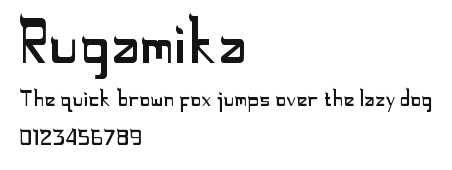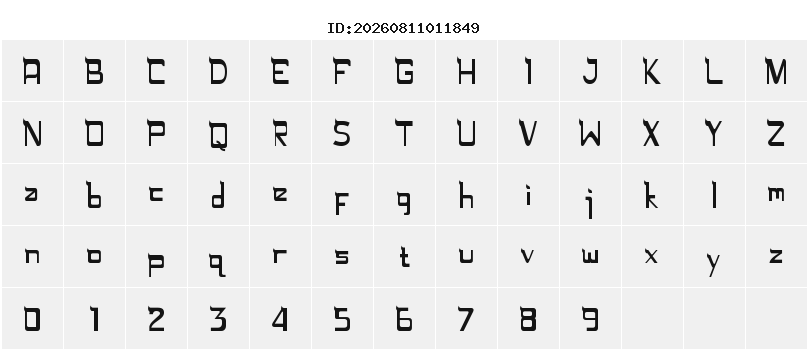
Rugamika.ttf is a modern, elegant sans-serif font designed for ultimate readability and visual harmony. Perfect for branding, headlines, web design, and print materials.